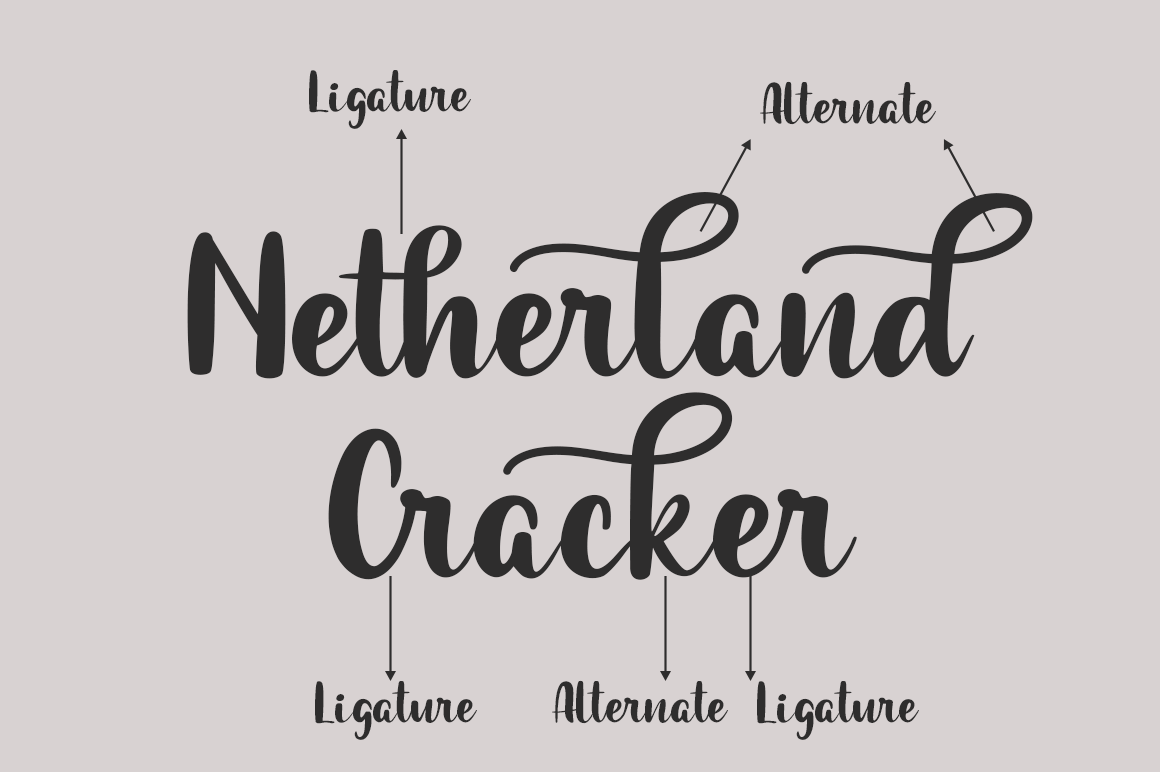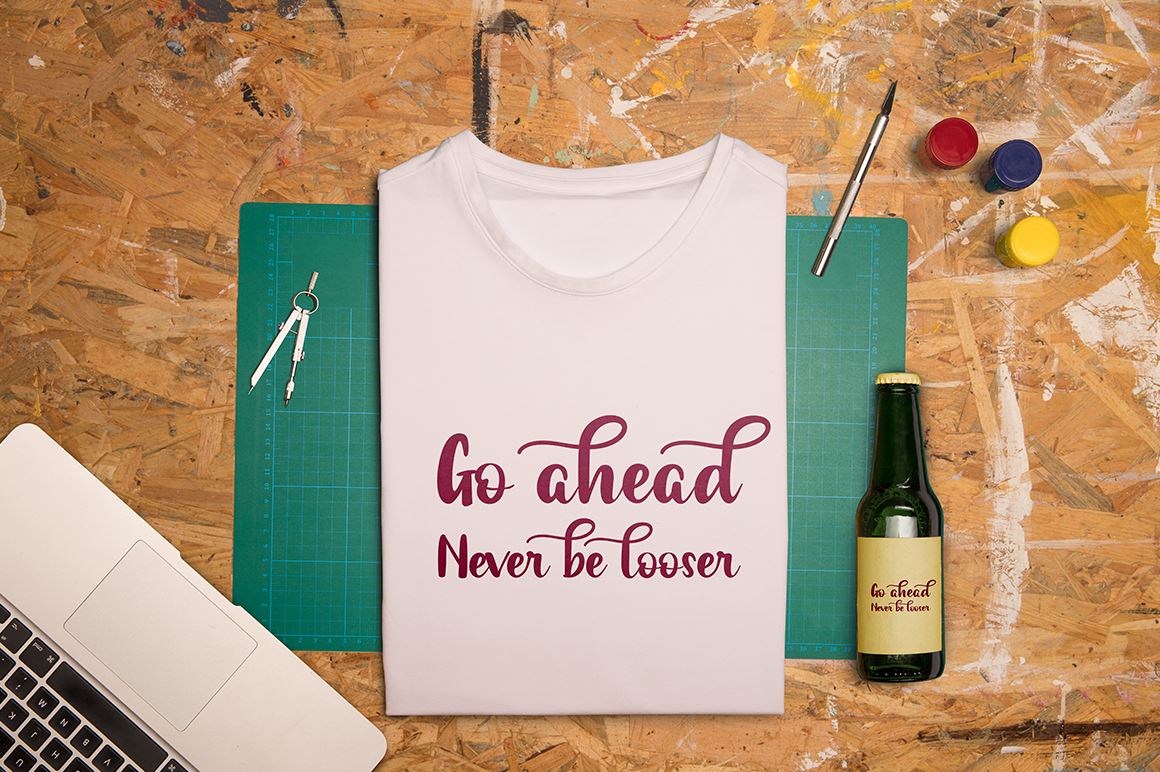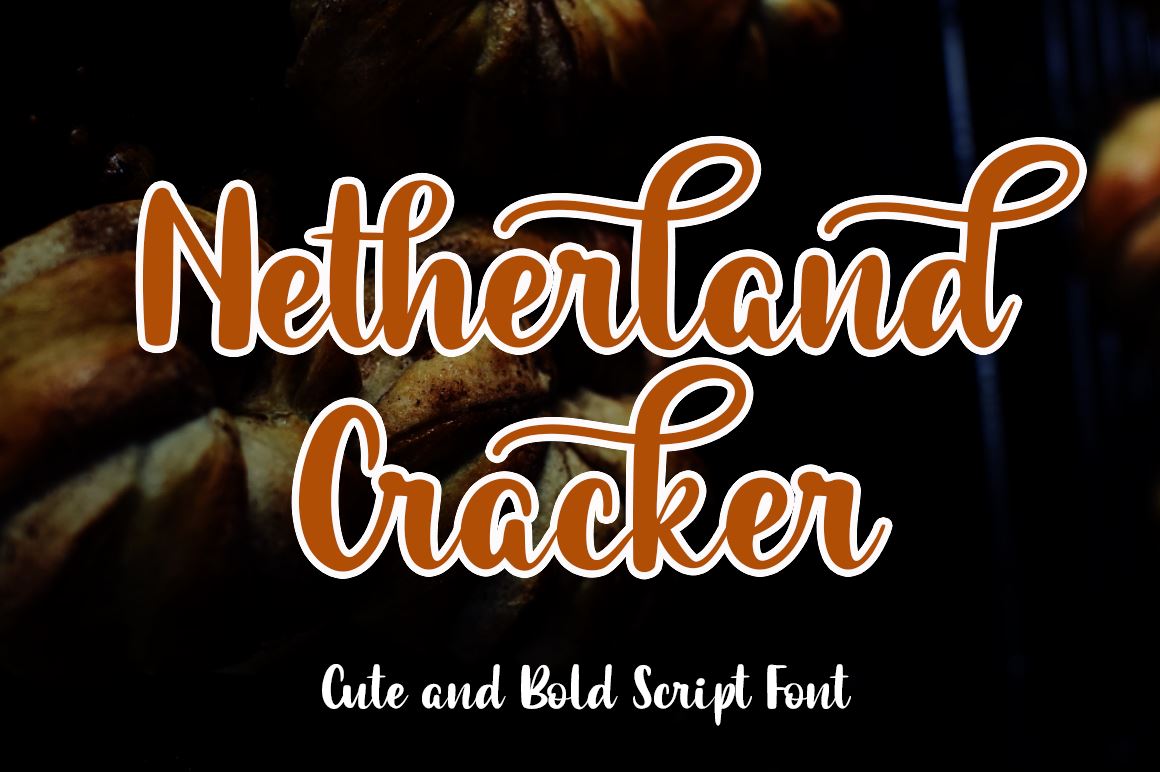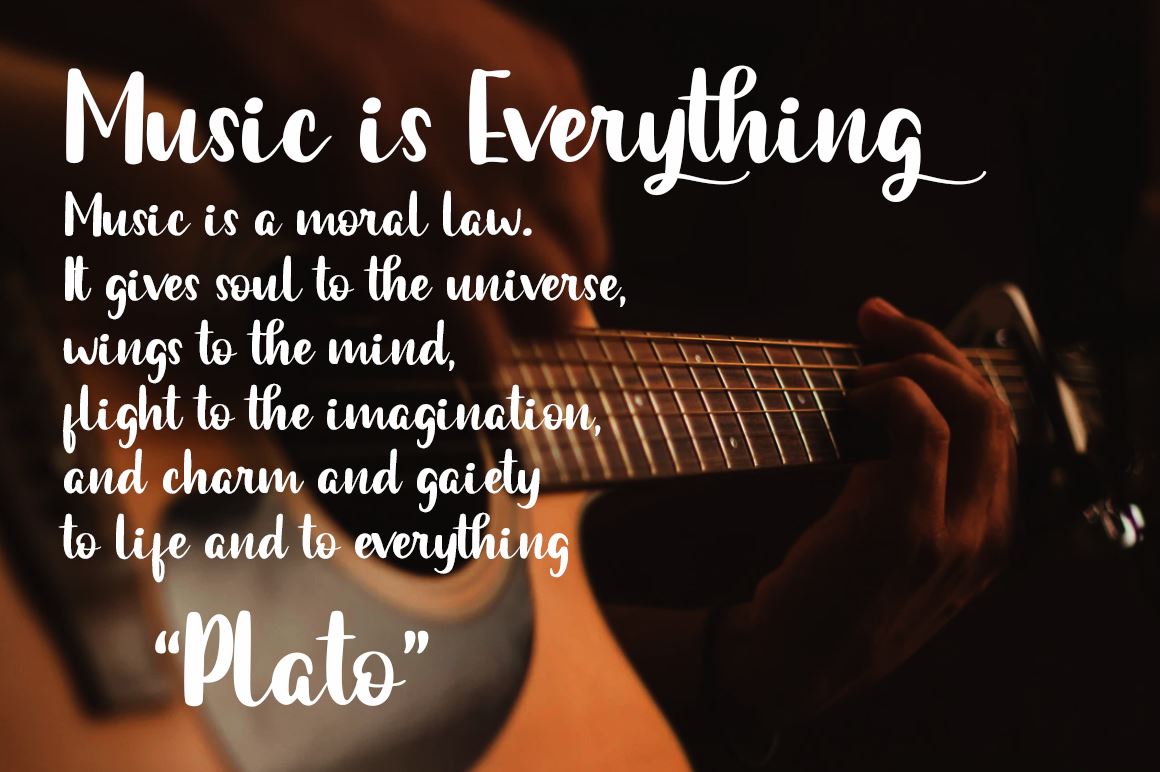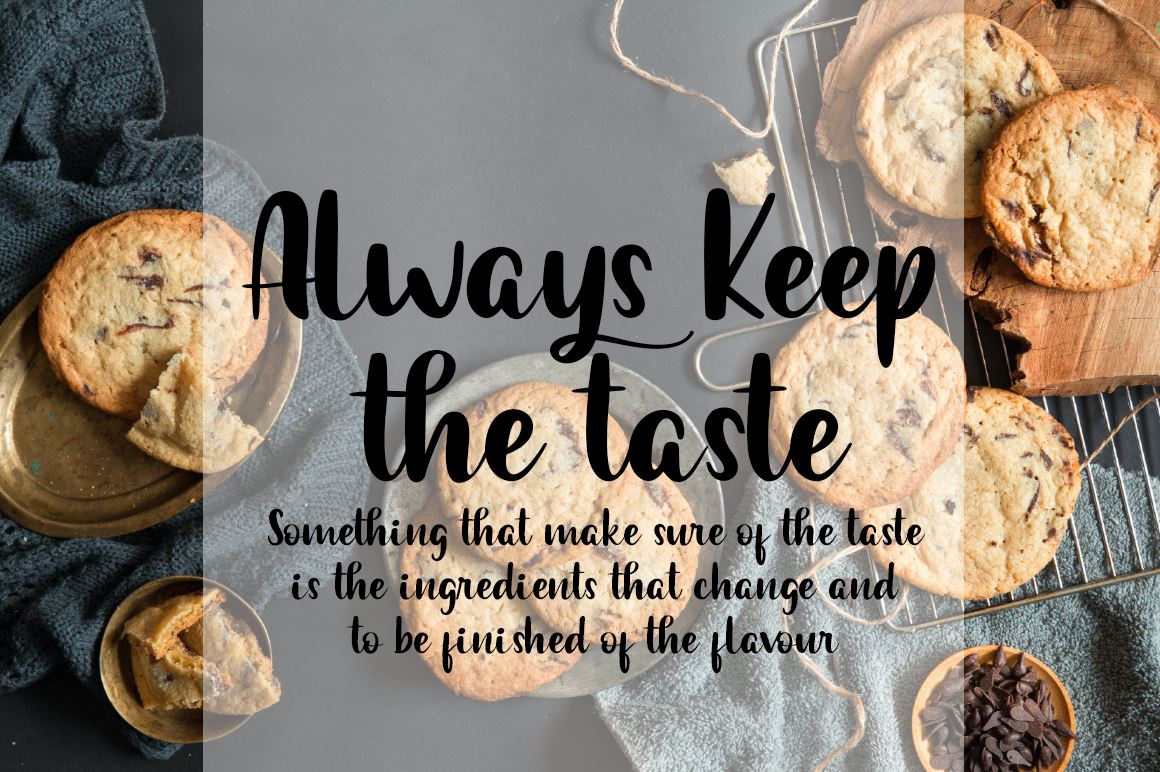
Netherland Cracker
About Netherland Cracker
A Handwritten font with modern fun calligraphy style Specifics: Cute and pretty style with alternates in lowercase You will receive otf, ttf files with your purchased Numerical, Punctuation, Multi language included Happy Designing!